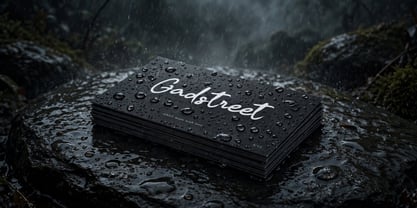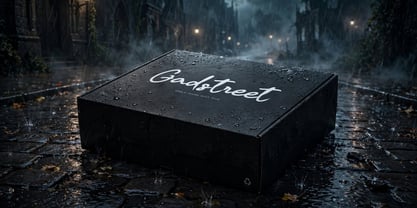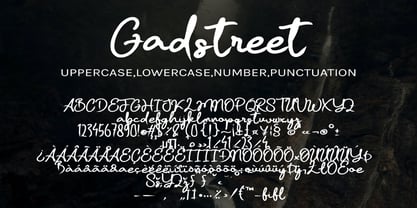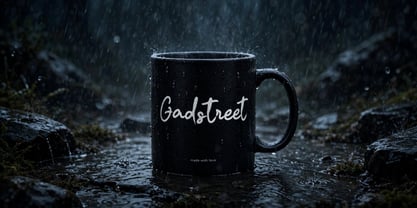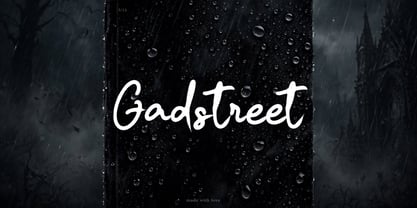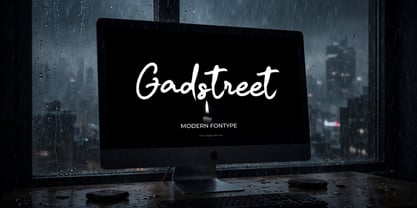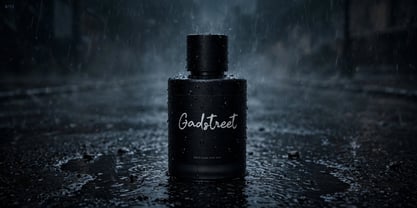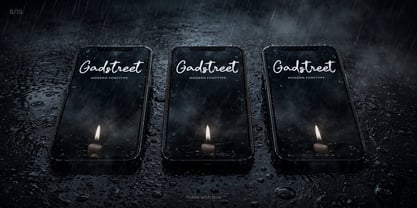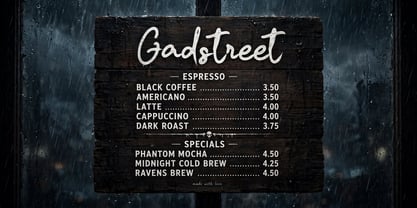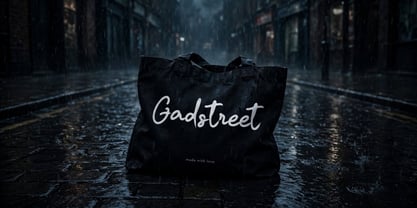
Gadstreet
by Ayska
Gadstreet is a casually and quickly handwritten brush script. There is just a right amount of texture left so it looks good in small and big sizes. These elements gives modern, clean and elegant. This font is perfect for logos, advertisements, shirts, stickers, crafts, teachers, goodnotes, planners, signs, social media. Create packaging design, brand identity, art posters, invitations, restaurant menu and more